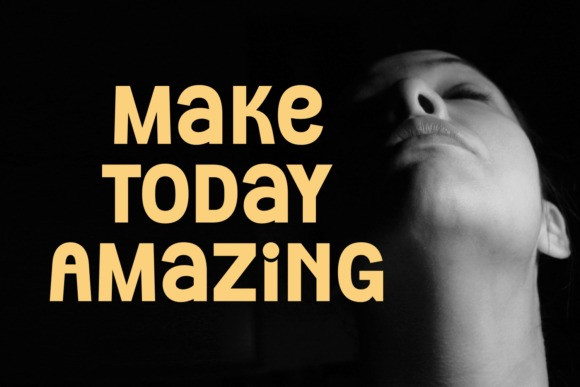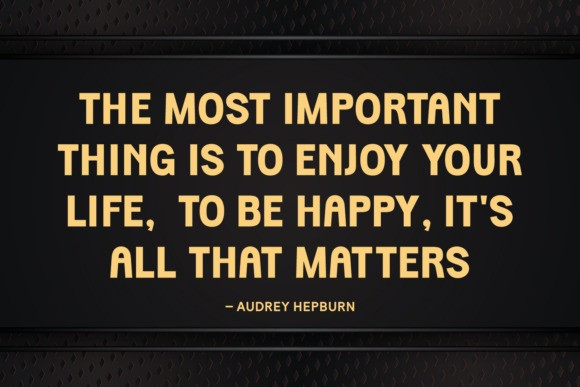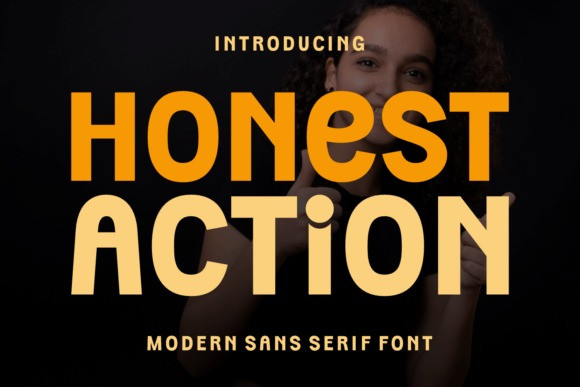
Honest Action Font
Honest Action Font is a bold and authoritative modern sans-serif typeface that delivers clarity, power, and high impact with its geometric, extra-heavy letterforms, designed for maximum visibility and uncompromising style.
This powerful Honest Action font features a strong, consistent stroke weight and perfectly rounded terminals, giving it a friendly yet highly capable and professional appearance. The blocky, condensed structure is optimized for short, striking headlines where every word needs to shout.
The Honest Action typeface is an essential display font for modern corporate branding, sports and athletic graphics, striking digital advertisements, and powerful poster design. This versatile sans-serif font is a clean, confident, and reliable choice for projects requiring a trustworthy and dynamic visual voice.